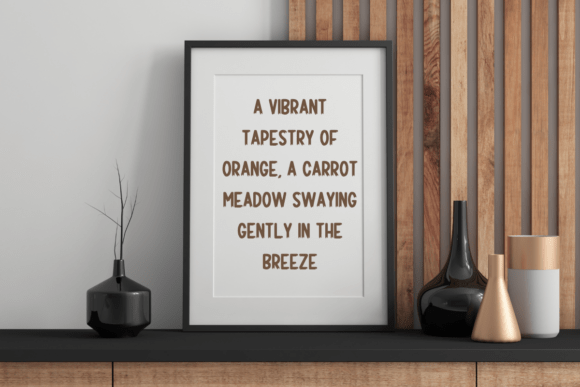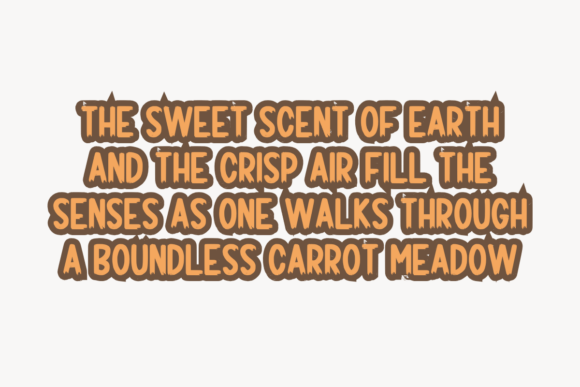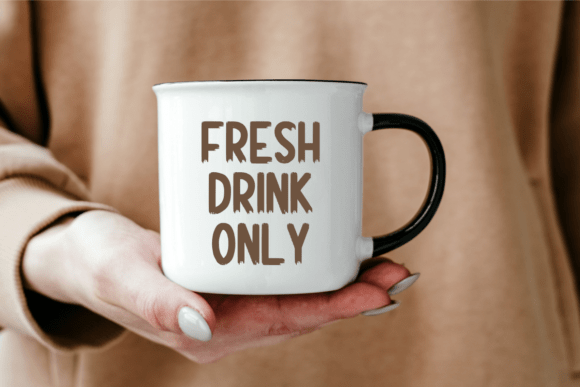
Carrot Meadow Font
Carrot Meadow is a fun and playful font bursting with charm and personality. Its bold and cheerful letterforms make it perfect for love-themed designs, posters, greeting cards, or any project that needs a touch of romance and joy. Add a pop of happiness to your creations with this lively typeface!